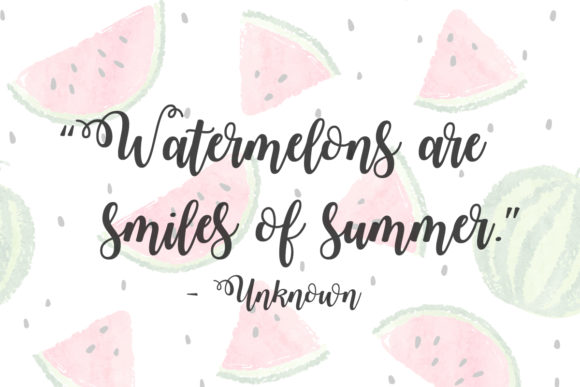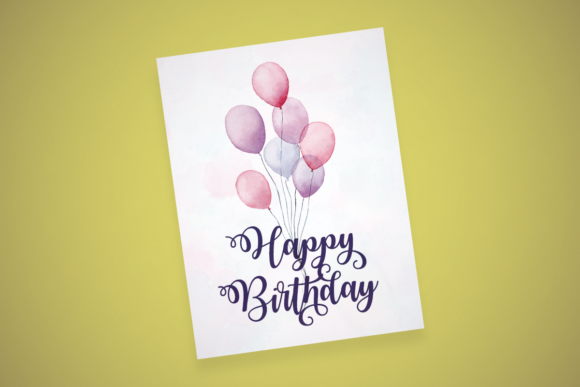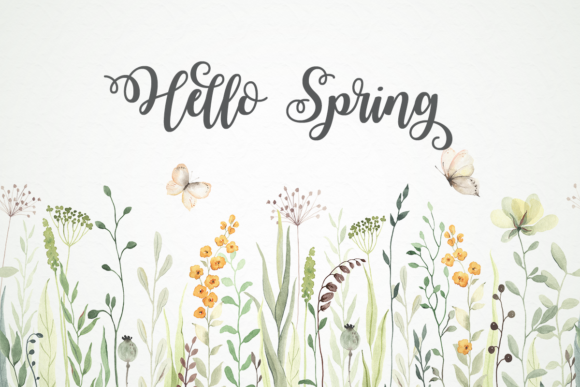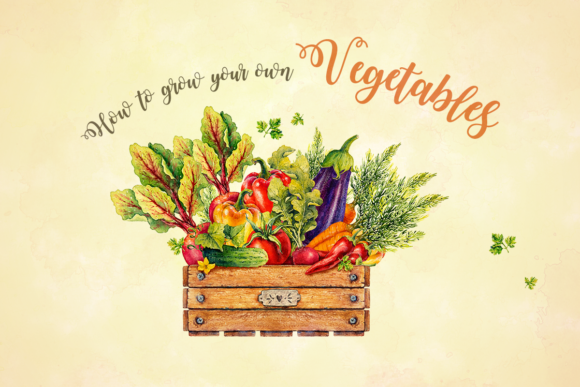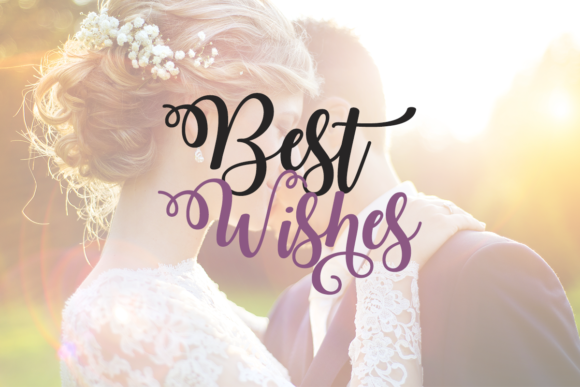
Watermelon Font
“Watermelon” is a modern calligraphy typeface that exudes charm and feminine flair. Its lovely curls and bouncy letters are designed to add a touch of elegance and sophistication to any project.
This typeface is perfect for a wide range of applications. Whether you’re designing logos, crafting social media quotes, creating greeting cards, designing blog graphics, or preparing wedding invitations, Watermelon can help you make a statement. Its unique design elements can add a touch of personality and style to your work.
One of the standout features of Watermelon is its PUA encoding. This means you can access all of the glyphs and swashes with ease, giving you the freedom to customize and personalize your designs. Whether you want to add a special character or use a unique swash, Watermelon makes it easy.
In a world where design matters, Watermelon can help you stand out. Its blend of modern design and classic calligraphy makes it a versatile and stylish choice for designers and creatives. Choose Watermelon, and let your designs shine.